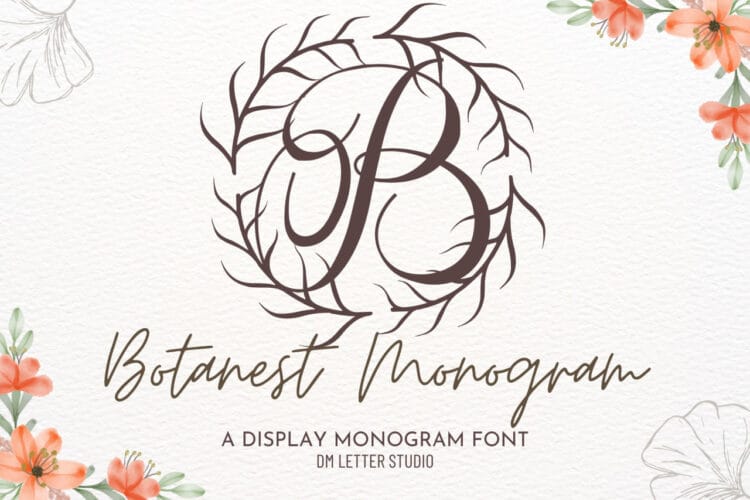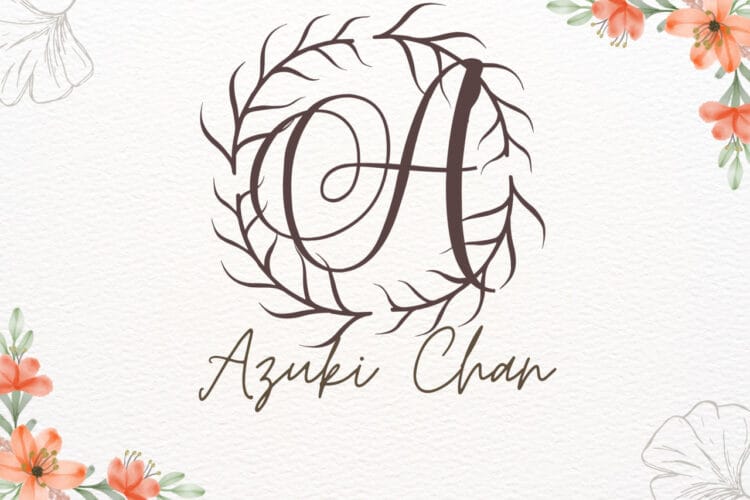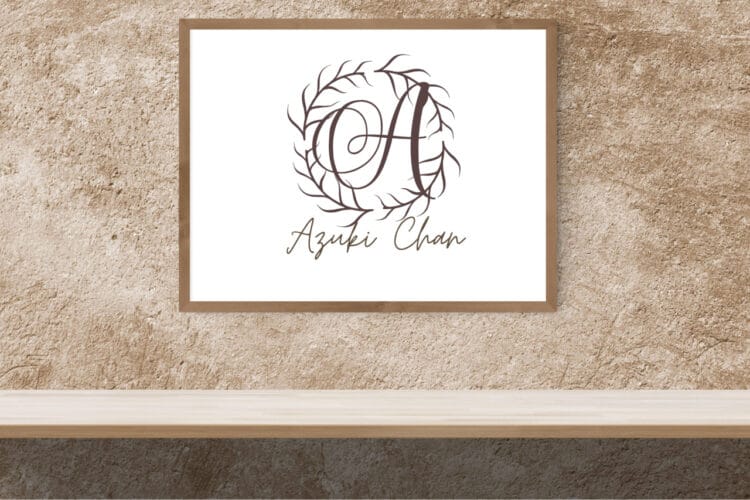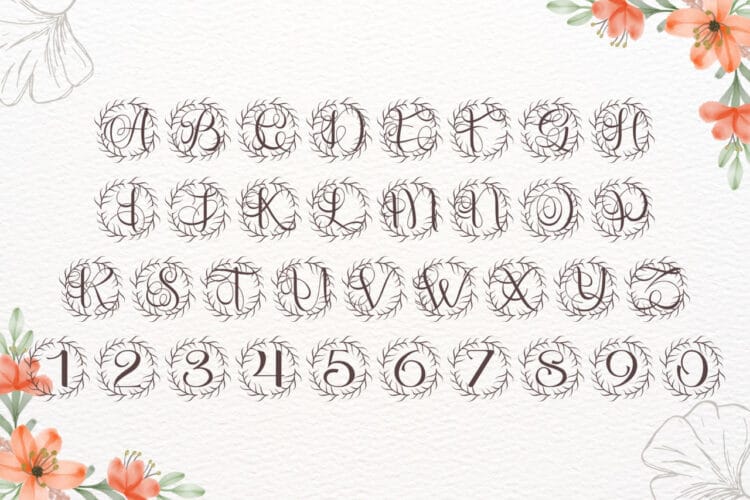
Meet Botanest, the Monogram Font
Botanest Monogram turns initials into calm, nature-inspired emblems rooted in soft botanical balance. The design feels organic, airy, and timeless, with gentle curves that echo leaves and natural growth. Each letter stays clear at any size, so small tags remain readable while larger designs feel graceful and composed. Use Botanest for weddings, eco-conscious branding, stationery, keepsake gifts, and luxury packaging. As a result, your designs feel warm, natural, and thoughtfully refined.
Fast layouts with the Botanest Monogram Font
Start with a central initial and let the botanical form frame it naturally. After that, add names or dates using a soft serif or clean sans serif. Because Botanest holds its shape at small sizes, labels, stickers, cards, and tags stay crisp and readable. In addition, it works beautifully with wreath frames, oval borders, thin dividers, and subtle greenery accents. Finally, save color palettes like sage and cream, olive and ivory, eucalyptus and linen, or charcoal and soft gold to reuse across product lines.
Creative uses and quick wins
Wedding monograms, invitation covers, and save-the-date cards
Logo seals, certificates, and boutique brand marks
Gift tags, stickers, and keepsake packaging
Labels for candles, soap, skincare, perfume, and handmade goods
Alphabet characters (A–Z)
Numbers (0–9)
Design tips for Botanest Monogram Font
Keep the monogram as the focal point and use a separate font for supporting text. Also, give it enough breathing room so botanical details stay readable at smaller sizes. For a premium finish, try foil stamping, embossing, or letterpress on thick or textured stock. Finally, export at 300 DPI for print and at 2× size for web so edges remain smooth everywhere.